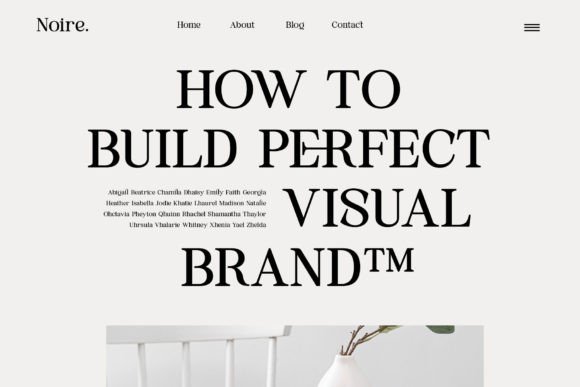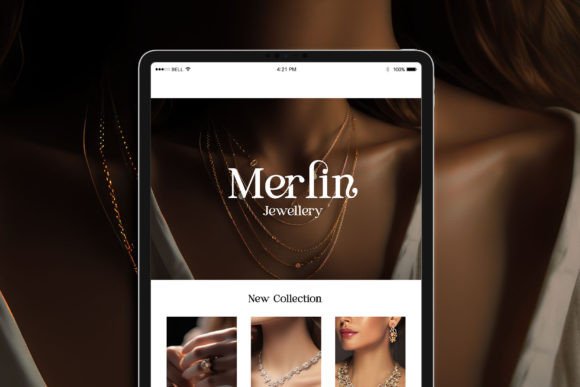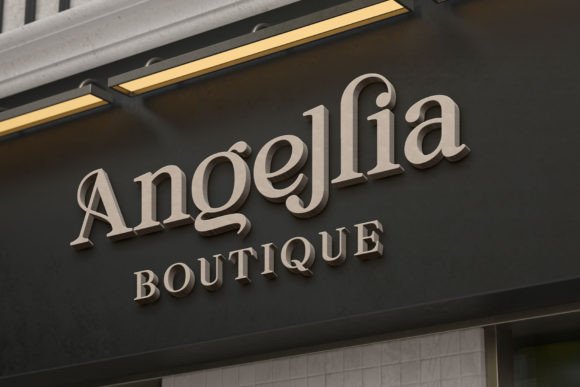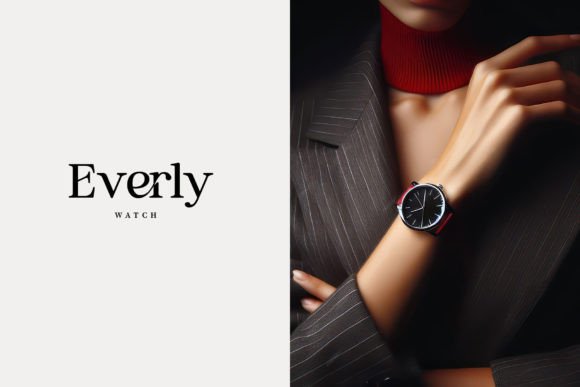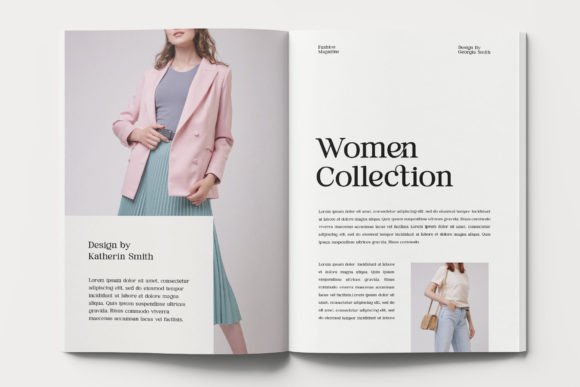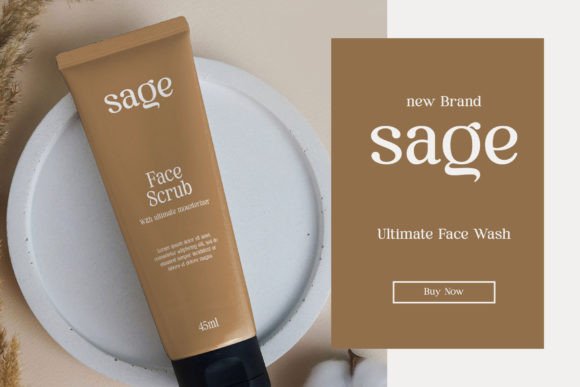
Fergina Font: Elevate Your Designs with Timeless Elegance
In the world of typography, few fonts manage to strike a balance between classic sophistication and modern flair. Fergina Font is one such exceptional typeface that seamlessly blends traditional elegance with contemporary style, making it an ideal choice for designers and crafters looking to add a touch of luxury to their projects.
The Essence of Fergina Font
Fergina is a stylish serif font that exudes refinement and poise. Its carefully crafted serifs and well-proportioned letterforms lend an air of sophistication to any design, be it branding, editorial work, or luxury projects. This font is perfect for those who appreciate the timeless beauty of classic typography but also require a modern edge to make their work stand out.
Key Features of Fergina Font
- Refined Serifs: Fergina’s serifs are meticulously designed to add a touch of elegance to your designs. They bring a sense of tradition and reliability, making the font suitable for high-end branding and editorial projects.
- Well-Proportioned Letterforms: Each letter in Fergina is crafted with precision, ensuring optimal readability and aesthetic appeal. The balanced proportions make it versatile for various applications, from headings to body text.
- Timeless Beauty: Fergina’s design draws inspiration from classic serif fonts while incorporating modern elements. This blend of old and new gives it a timeless quality that won’t go out of style.
- Versatility: Whether you’re working on a luxury brand identity, a high-end editorial piece, or a sophisticated craft project, Fergina adapts effortlessly. Its elegance shines through in every application, enhancing the overall impact of your work.
Applications of Fergina Font
Fergina’s versatility makes it suitable for a wide range of design projects. Here are some of the best applications for this stylish serif font:
- Branding: Use Fergina to create a luxurious and memorable brand identity. Its classic yet modern appeal ensures that your brand stands out while conveying a sense of tradition and reliability.
- Editorial Design: Fergina is perfect for editorial projects such as magazines, newspapers, and books. Its readability and elegance make it an excellent choice for both headings and body text.
- Luxury Designs: For high-end product packaging, advertisements, or any luxury-related design, Fergina brings a level of sophistication that’s hard to match. Its refined appearance elevates any project, making it more compelling and prestigious.
- Crafting and DIY Projects: Even for crafters, Fergina can be a valuable asset. Use it for designing labels, cards, or any other craft project that requires a touch of elegance. Its unique style will add a professional finish to your handmade creations.
Why Choose Fergina Font?
In a sea of fonts, Fergina stands out for several reasons:
- Unique Blend: It offers a rare blend of classic elegance and modern sophistication, making it versatile for various design needs.
- High Readability: Despite its elegant design, Fergina maintains high readability, making it suitable for both digital and print media.
- Customization: Fergina can be easily customized to fit your project’s specific needs. Whether you need to adjust the weight, size, or color, this font adapts well to any design requirement.
Fergina Font is more than just a typeface; it’s a design statement. Its stylish serifs, well-proportioned letterforms, and timeless beauty make it an invaluable asset for designers and crafters aiming to add a touch of class to their projects. Whether you’re working on a luxury brand, an editorial masterpiece, or a sophisticated craft, Fergina is sure to elevate your design to new heights of elegance and sophistication.
Embrace Fergina Font in your next project and experience the power of typography in enhancing your design’s aesthetic appeal and readability. With Fergina, you’re not just choosing a font; you’re choosing a legacy of elegance and refinement that will make your work truly unforgettable.